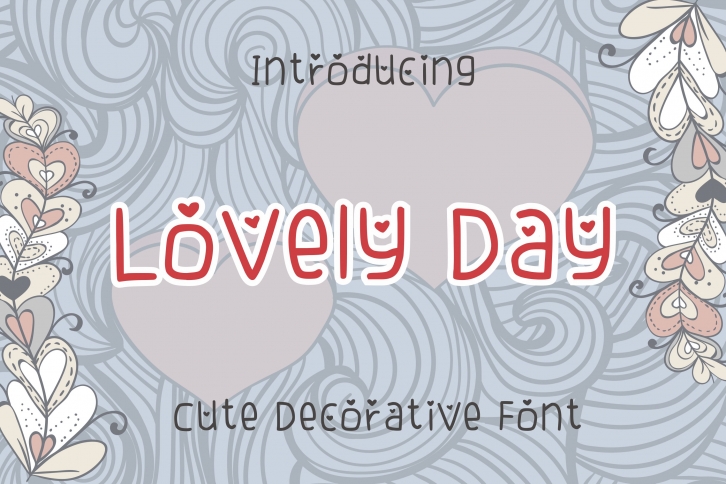
Lovely Day is a trendy and unique font with an authentic style. It was designed by Aisyah and it's a great choice for creative people who need such a font. It was released on November 15, 2020 and the file size is 18.56 MB. Lovely Day will add an organic vibe to any design idea!